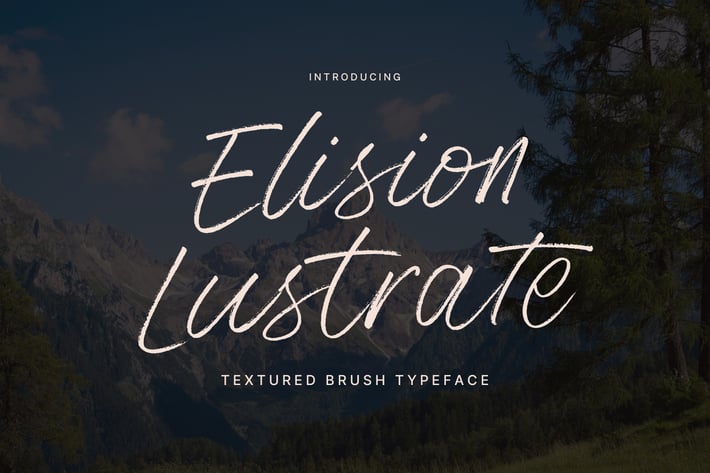
Elision Lustrate - Textured Brush Typeface
Elision Lustrate is a textured brush font with amazing character. Ideal for a logo, a name tag, handwritten quotations, product packaging, goods, social media, and greeting cards.
Upper and Lowercase